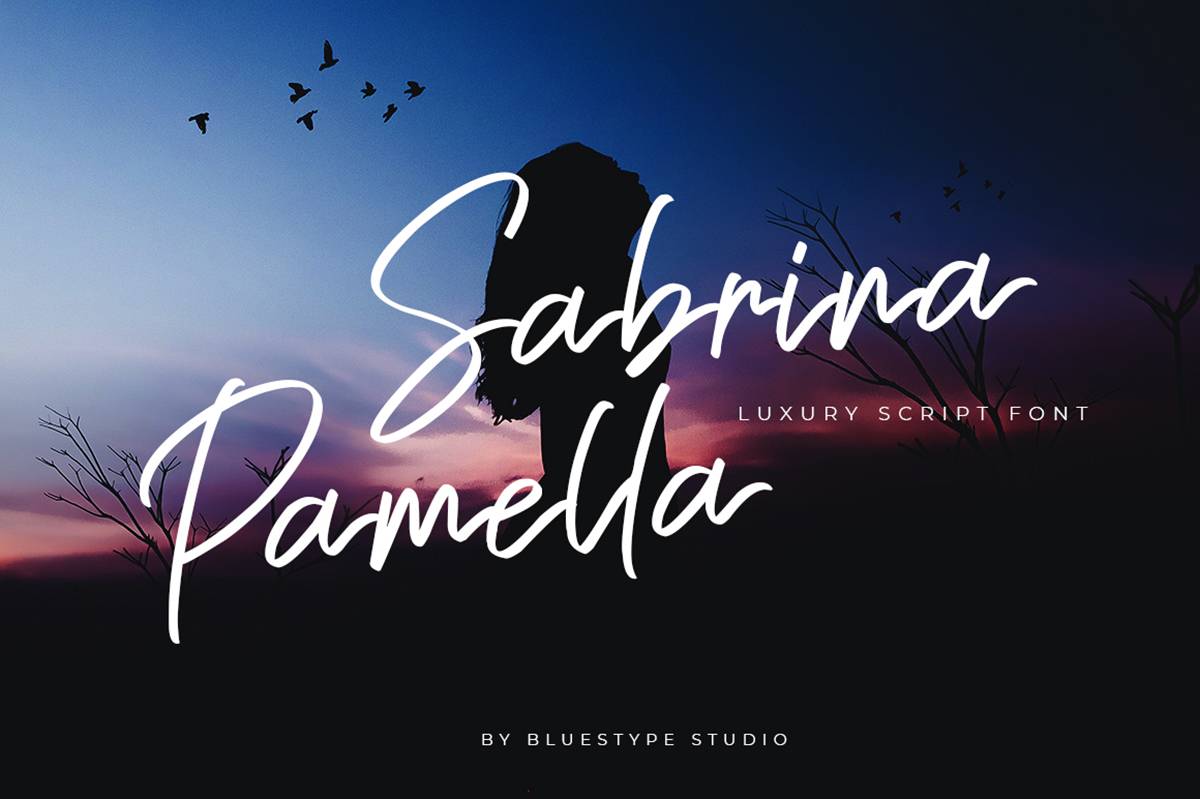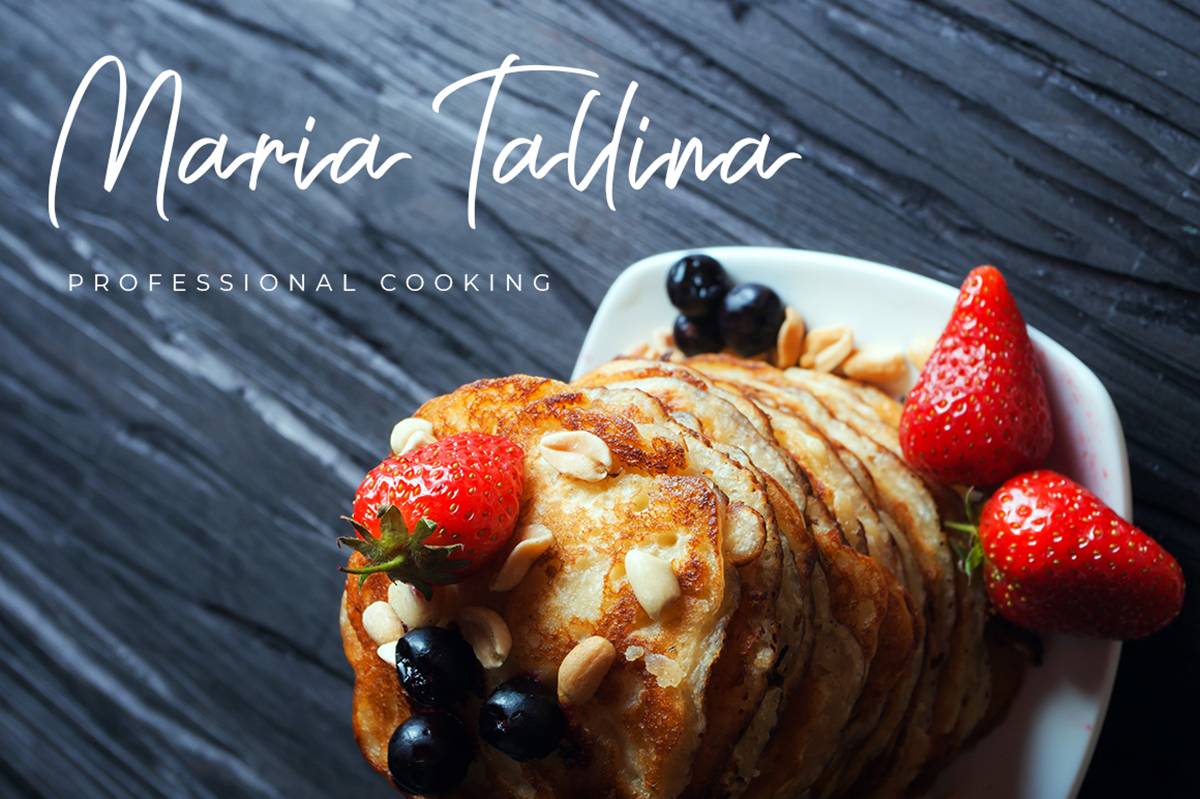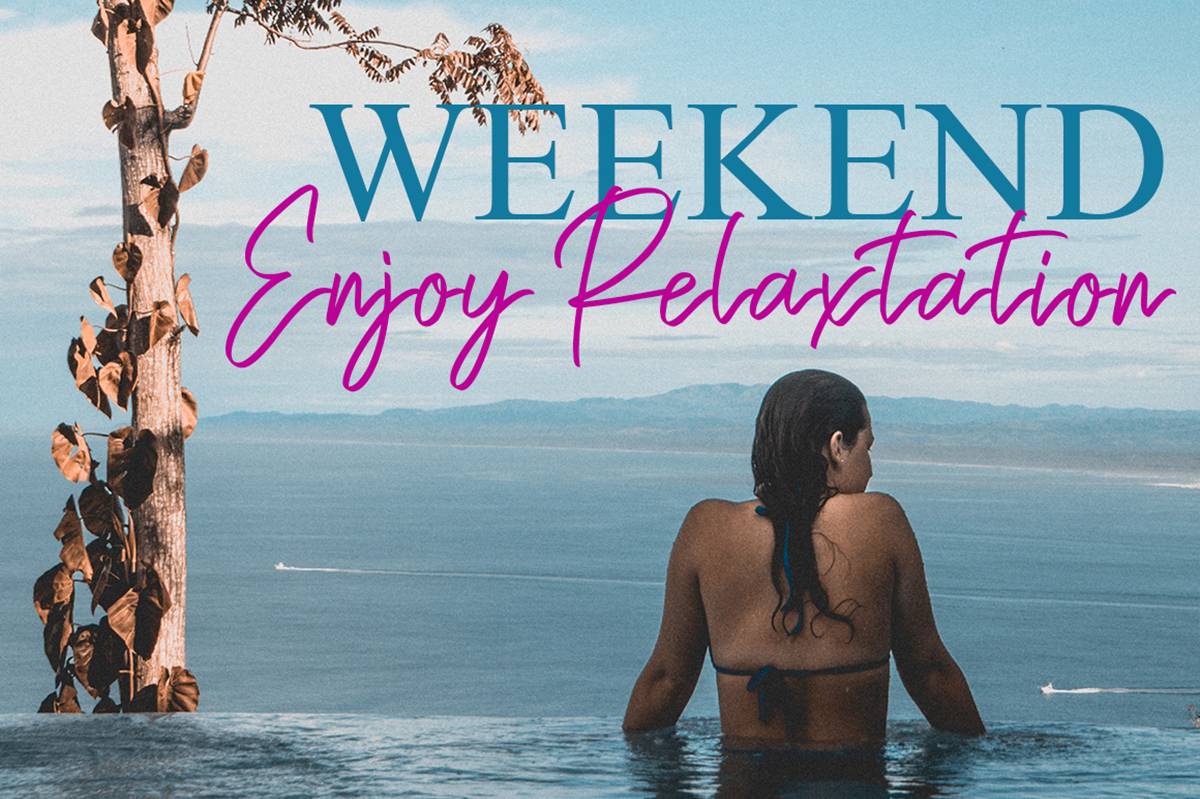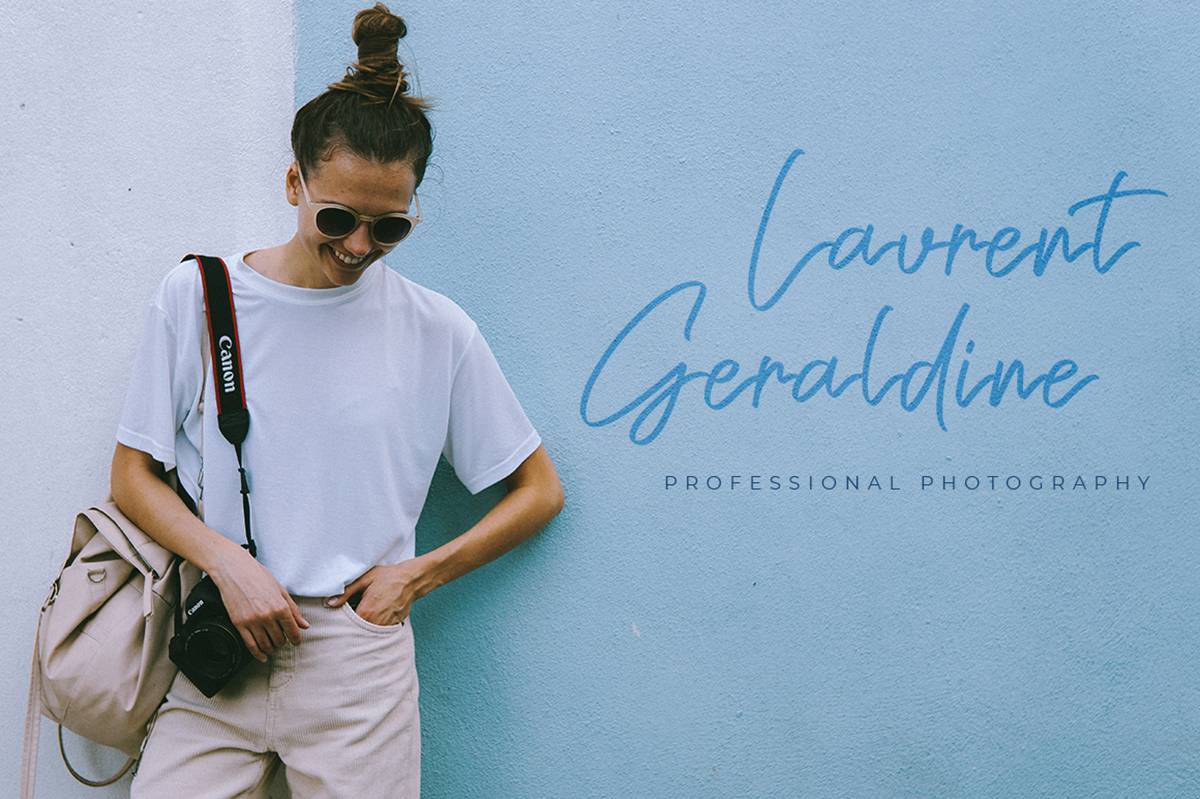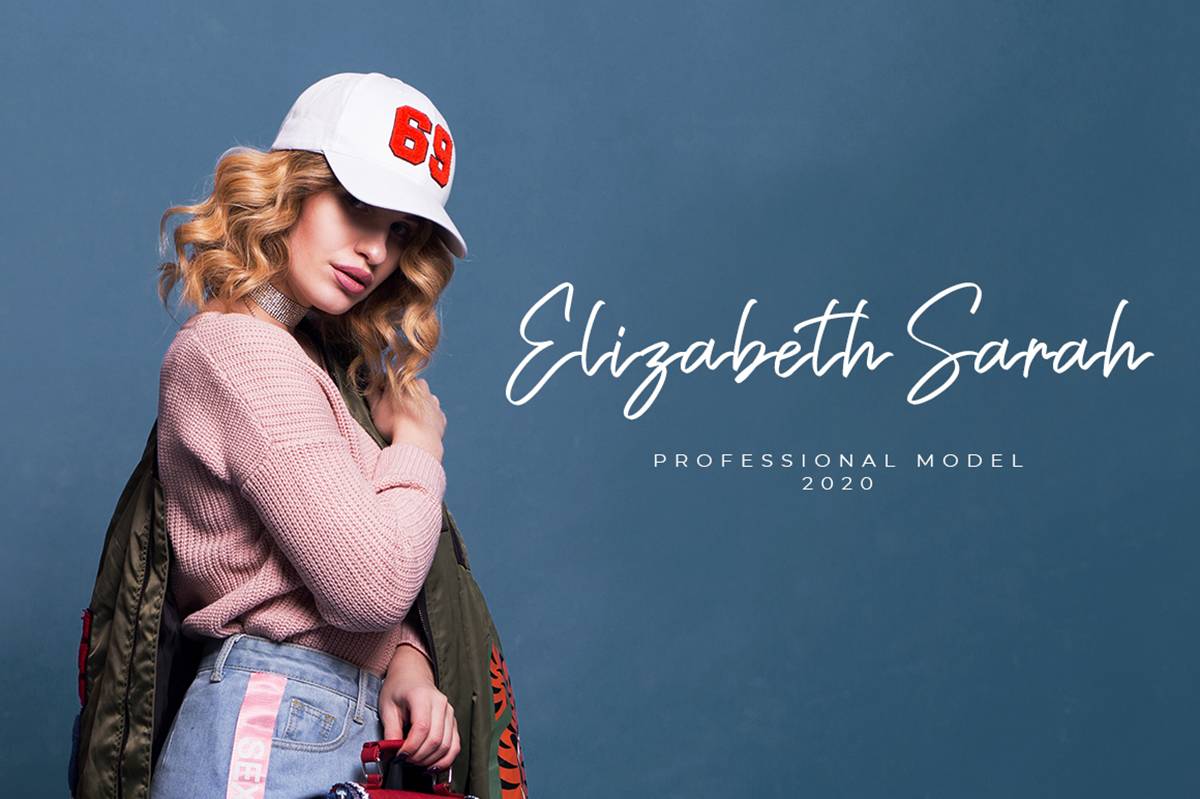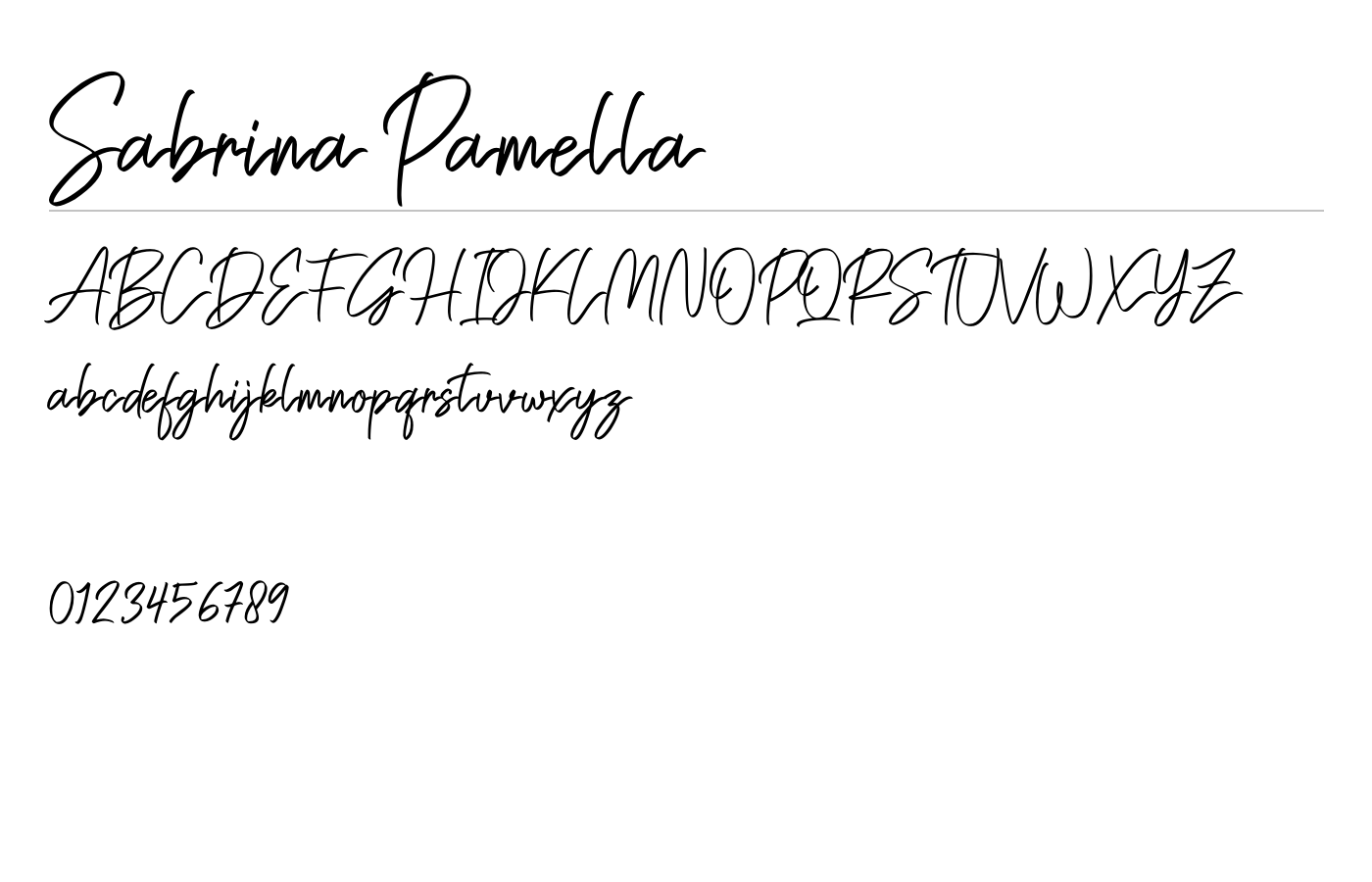
Sabrina Pamella is a delicate and flowing handwritten script font that features a light weight and elegant, slender strokes with a natural, casual feel. Its tall, narrow letterforms and smooth connections give it a stylish, modern personality perfect for invitations, branding, and creative projects that seek a personal yet sophisticated touch. This font works beautifully in designs that require an approachable, graceful look without sacrificing readability.
Sabrina Pamella Font
About Sabrina Pamella Font